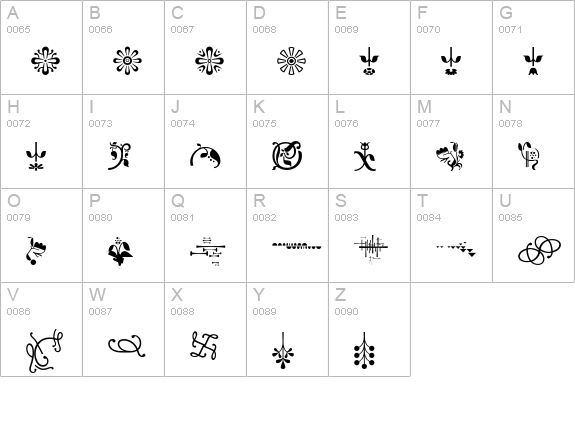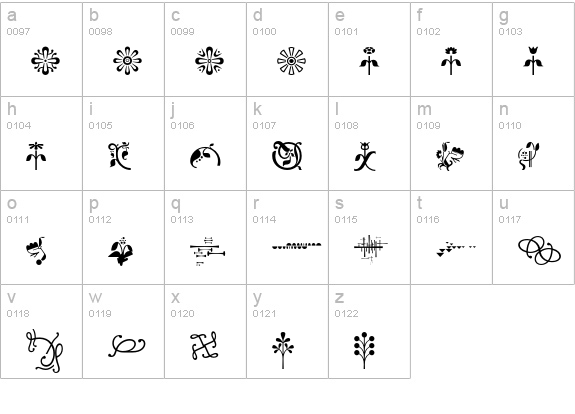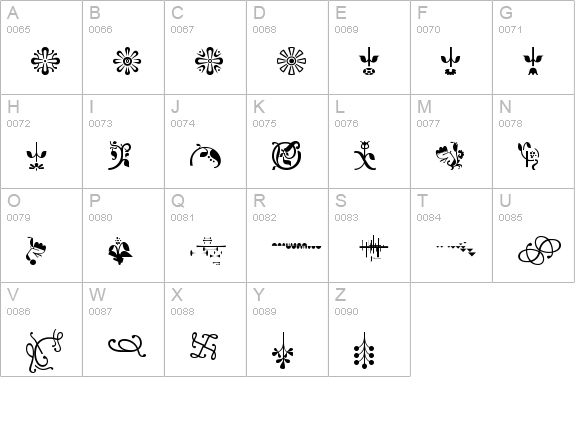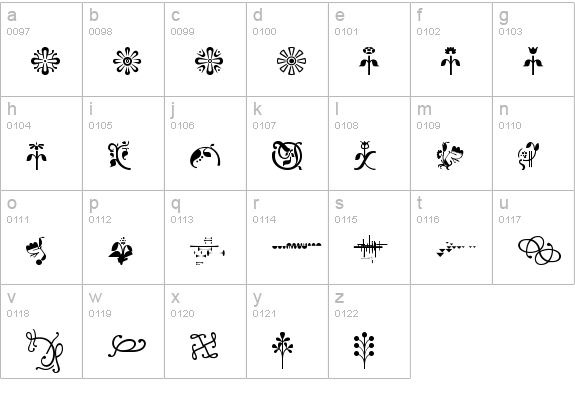
Odile-Ornaments Font Details
Odile-Ornaments font is a stunning display typeface that exudes elegance and sophistication. Inspired by intricate floral patterns and delicate ornaments, this font is perfect for adding a touch of refinement to any design project. With its graceful curves and ornate details, Odile-Ornaments font is sure to make a statement. What's even better is that Odile-Ornaments font is available for free download at FontsMarket.com. Whether you're working on invitations, branding, or any other creative project, this font will elevate your work to the next level. Embrace the beauty and intricacy of Odile-Ornaments font and let your designs shine with sophistication and style.